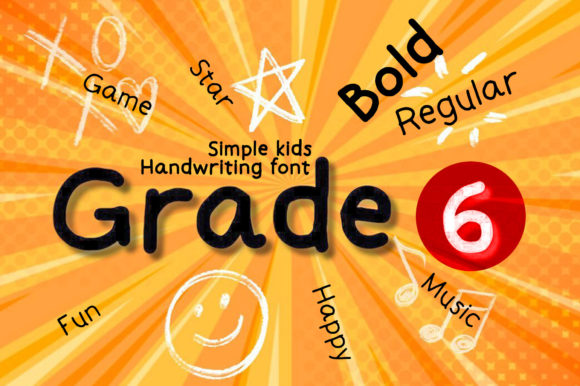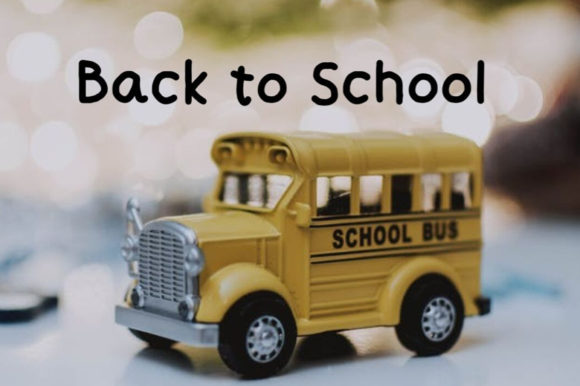
About Grade6 Font
Grade6 is a cute and simple lettered handwritten font that can be used for all chalkboard quotes or teaching material! Its authentic look will add a personal and realistic feel to your designs.